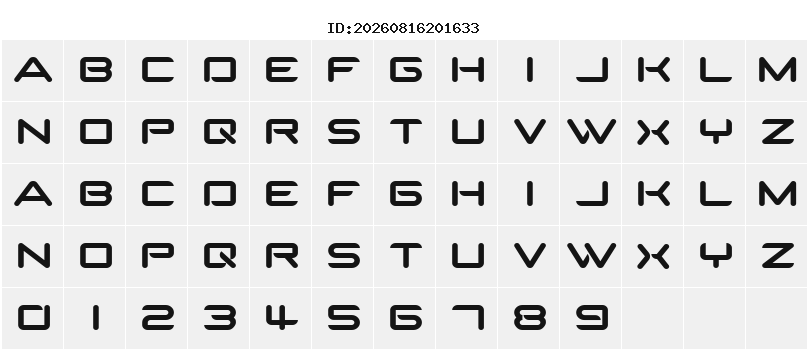
SparTakus Preview
About SparTakus.ttf
SparTakus.ttf is a modern, elegant sans-serif font designed for ultimate readability and visual harmony. Perfect for branding, headlines, web design, and print materials.